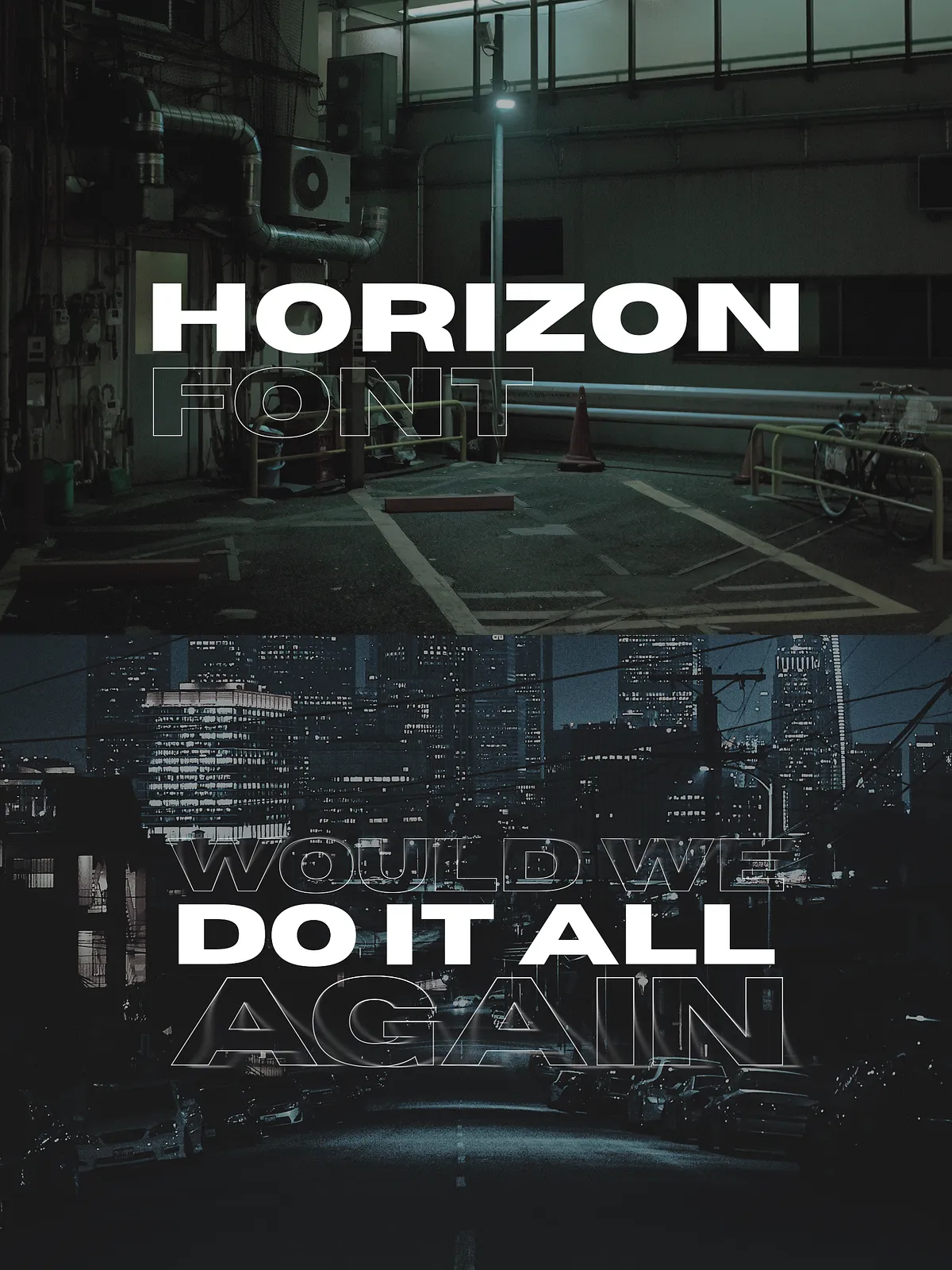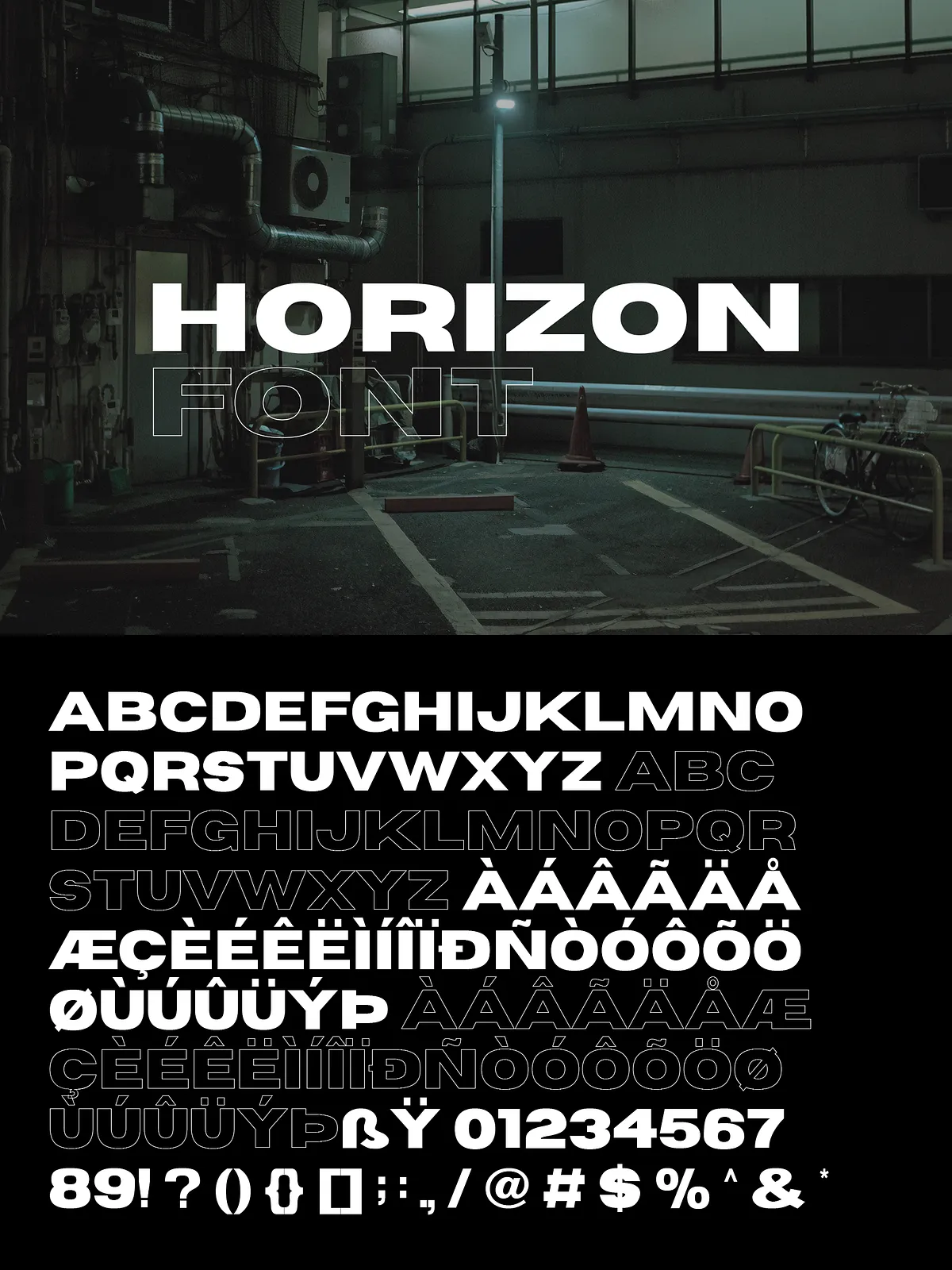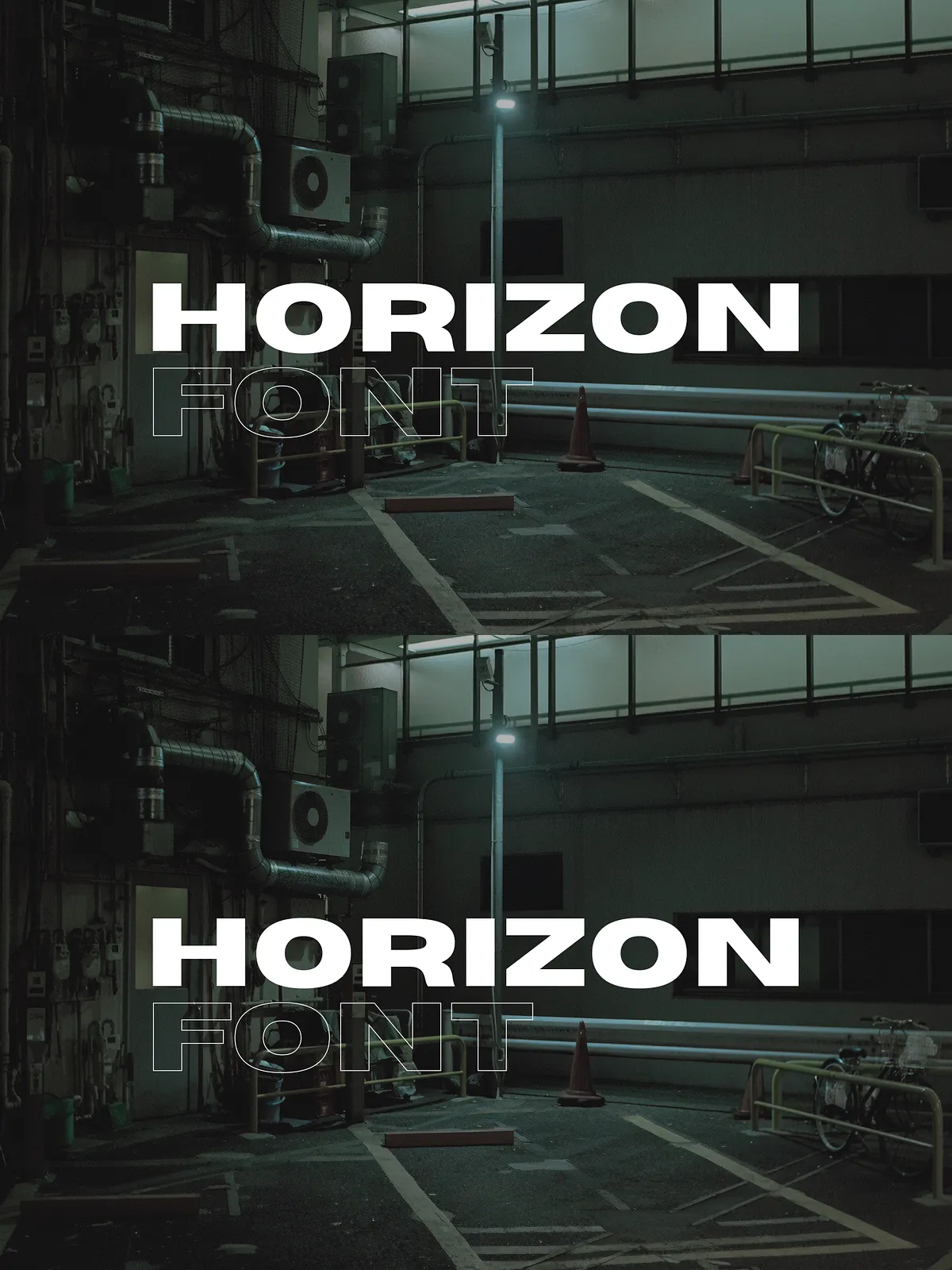
Elevate every headline, logo, and brand name with Horizon Wide Sans Serif, a thick, commanding sans‑serif font designed to capture attention instantly. This typeface delivers the visual weight you need for important titles, headings, and visual identifiers while preserving readability across all screen sizes.
Why Choose Horizon Wide Sans Serif?
Maximum Visual Impact
Horizon Wide presents a massive x‑height and solid stroke weight that cuts through visual clutter. The font’s bold anatomy ensures that your messages dominate the page, whether you place it on a website banner, printed brochure, or product packaging.
Versatile Application Across Media
Use Horizon Wide for:
- Website hero sections and call‑to‑action buttons
- Brand logos and word‑marks that need instant recognition
- Print collateral such as posters, flyers, and business cards
- Presentation slides where titles must stand out
Optimized for Modern Design Workflows
Even though the font’s stroke is thick, it remains perfectly legible at both large and small scales. Designers can integrate Horizon Wide into any design system without sacrificing performance or load times, as the file formats are optimized for web use.
Comprehensive Character Sets
Full Latin Coverage
Horizon Wide supports the essential character ranges required for global projects:
- Basic Latin – All 26 English letters, punctuation, and common symbols.
- Numbers & Symbols – Digits 0‑9, mathematical operators, currency signs, and typographic symbols.
- Latin‑1 Supplement – Accented characters for Western European languages such as French, German, and Spanish.
- Latin Extended‑A – Additional characters for Central European and Baltic languages, extending your reach to markets like Polish, Czech, and Hungarian.
Ready for International Projects
Because the font includes Latin‑1 Supplement and Latin Extended‑A, you can design multilingual campaigns without switching typefaces. This consistency strengthens brand identity across regions and reduces the time spent searching for matching fonts.
Design Tips to Maximize Impact
Pairing Strategies
Combine Horizon Wide with a light, neutral sans‑serif for body copy. This contrast creates a clear hierarchy, allowing titles to dominate while maintaining readability for paragraphs.
Color and Background Considerations
Because the font carries substantial weight, it performs best on clean, high‑contrast backgrounds. Use dark text on light backgrounds for maximum legibility, or reverse the scheme for bold, modern aesthetics.
Spacing and Layout
Adjust letter‑spacing (tracking) slightly tighter for headline caps to enhance the compact, dense feel. Keep line‑height generous (1.2–1.4) to prevent visual crowding, especially at larger sizes.